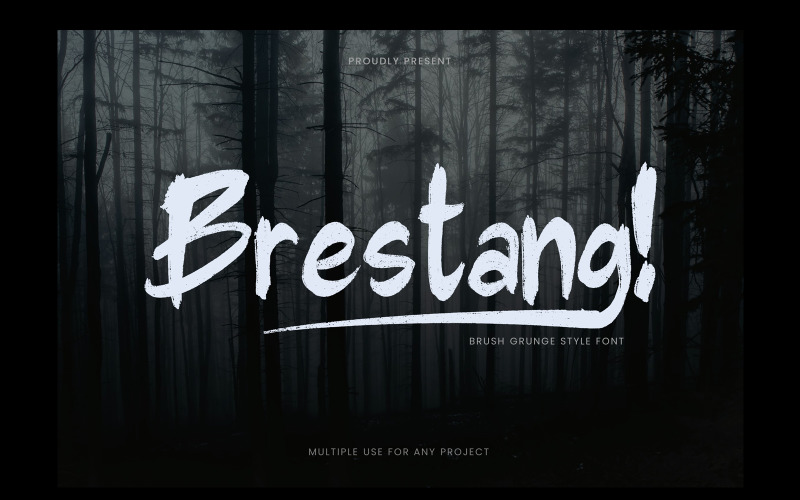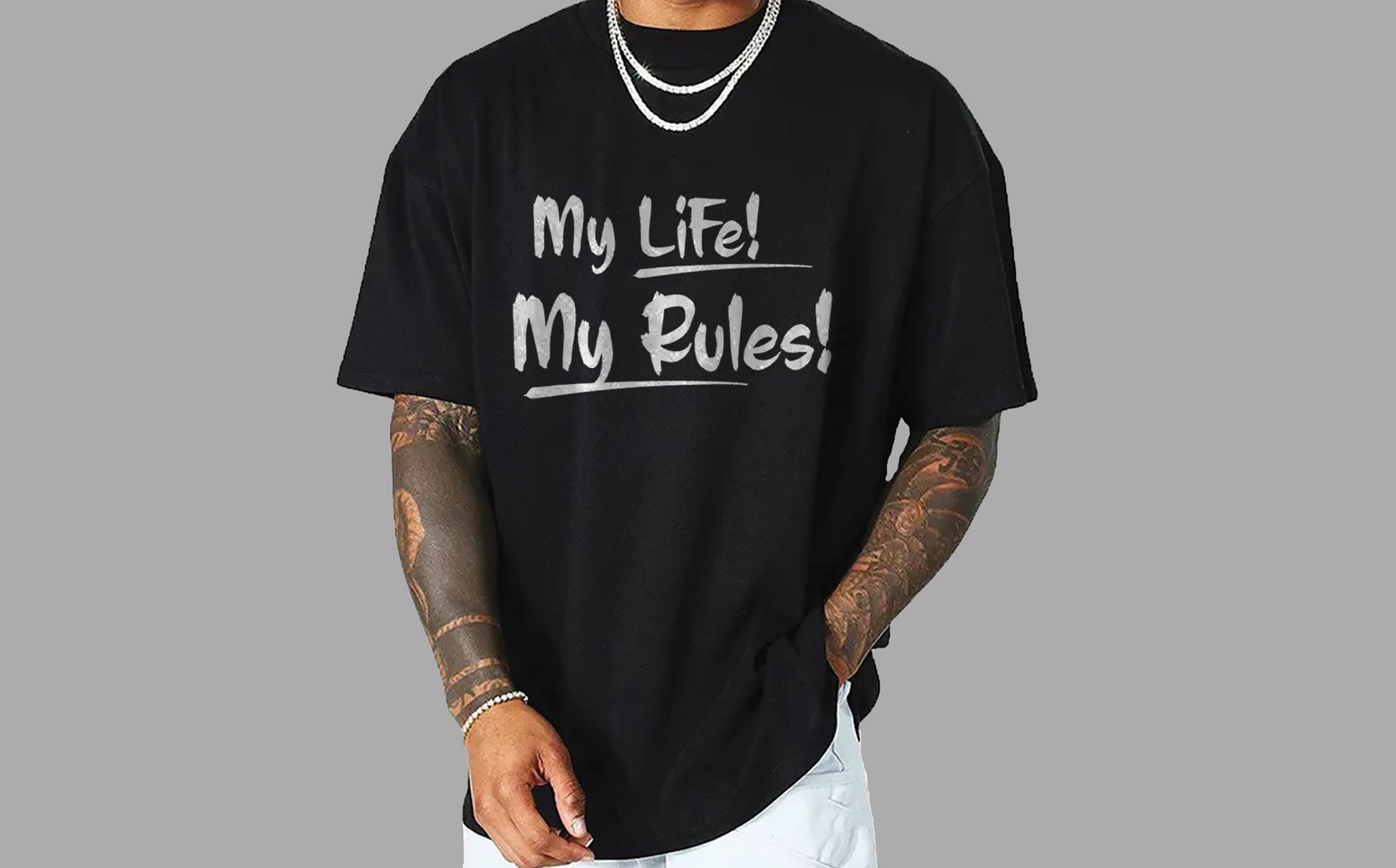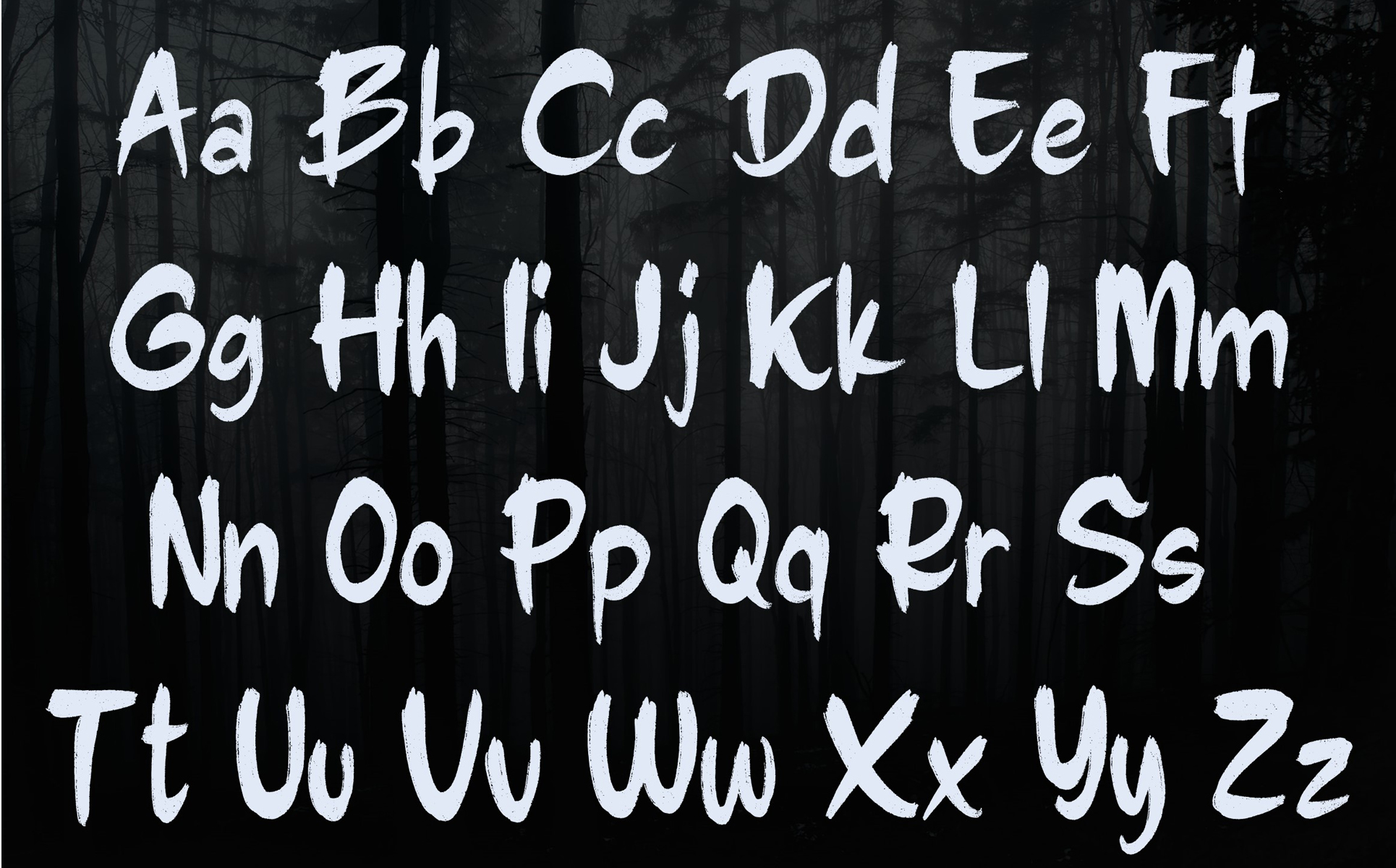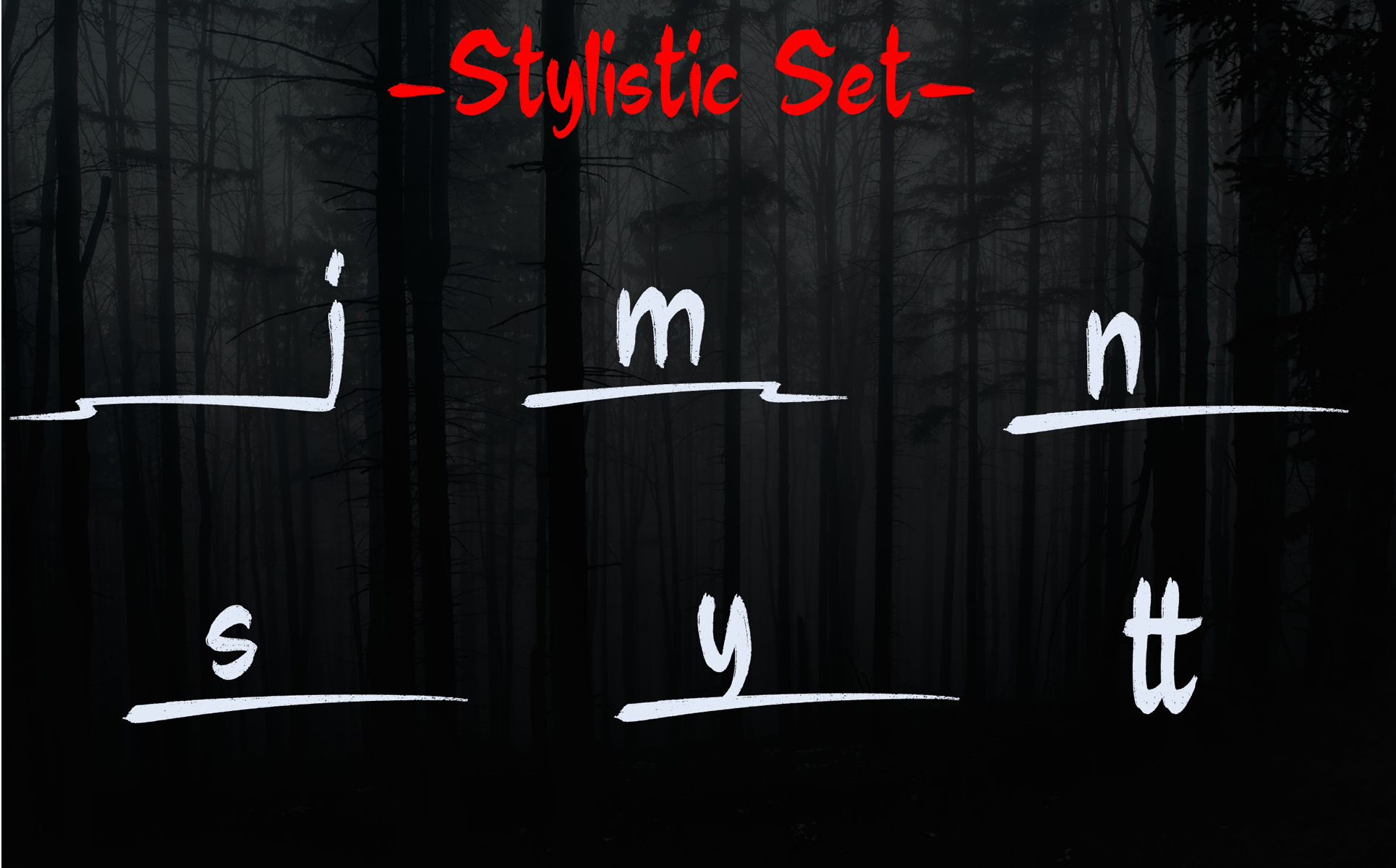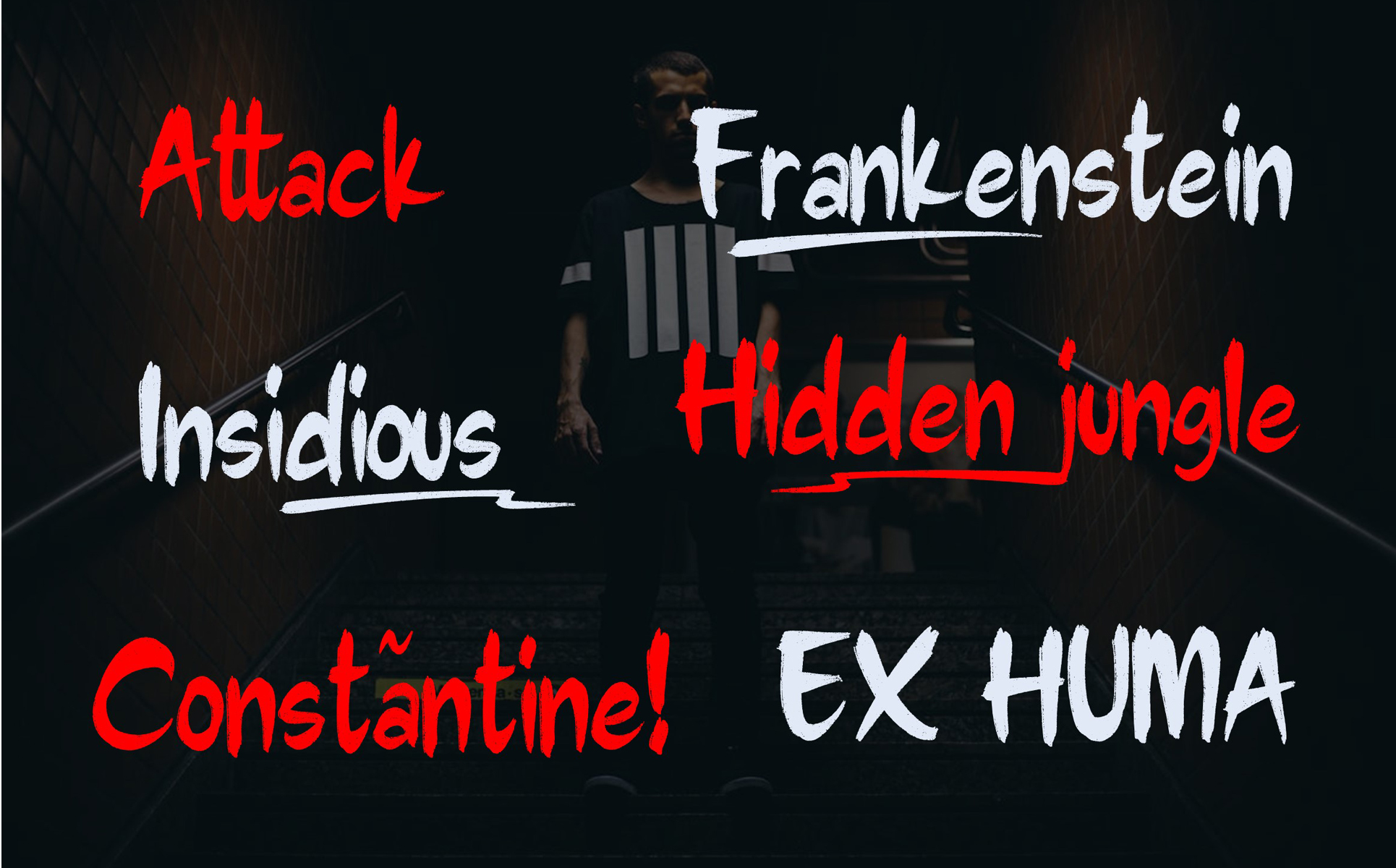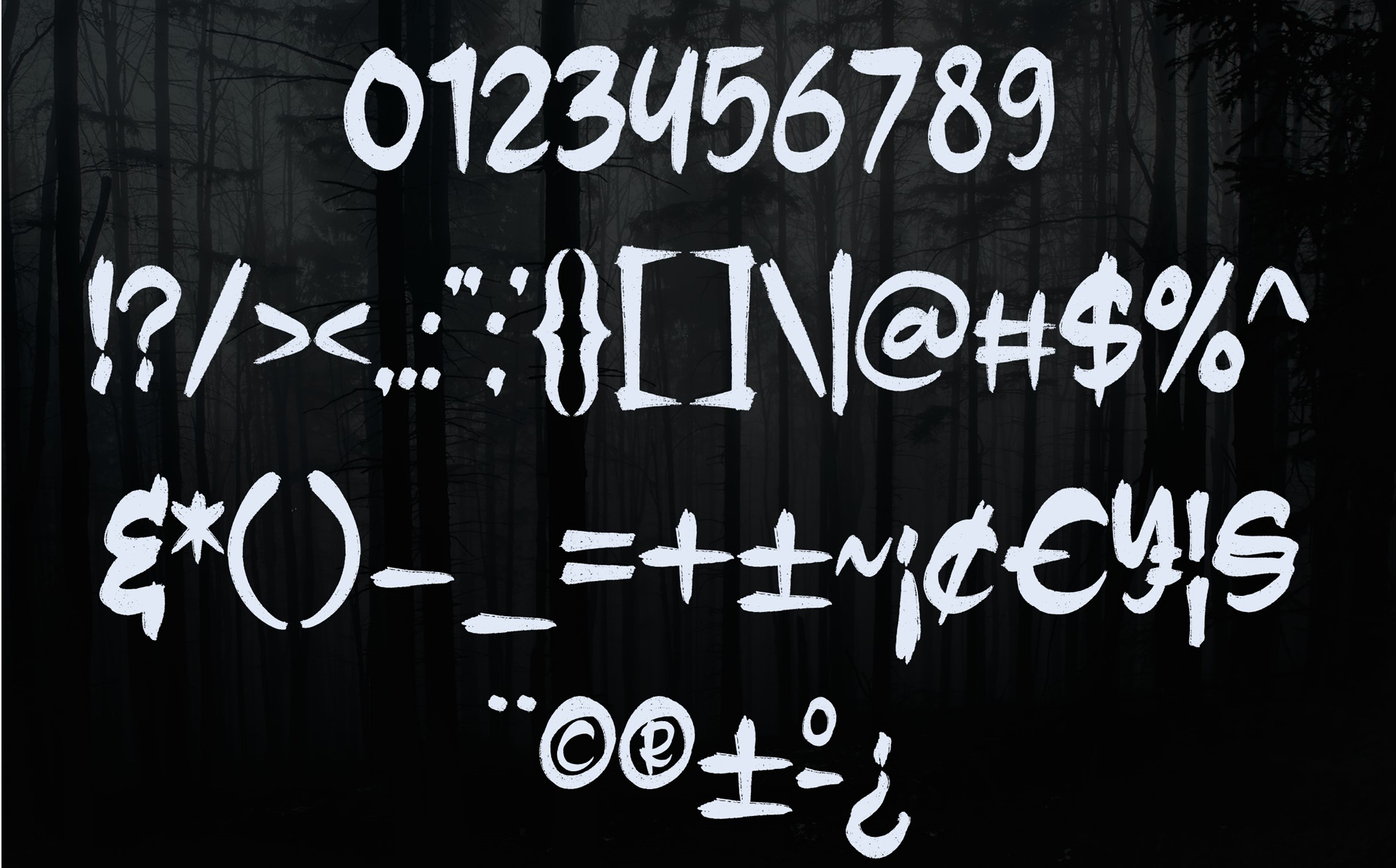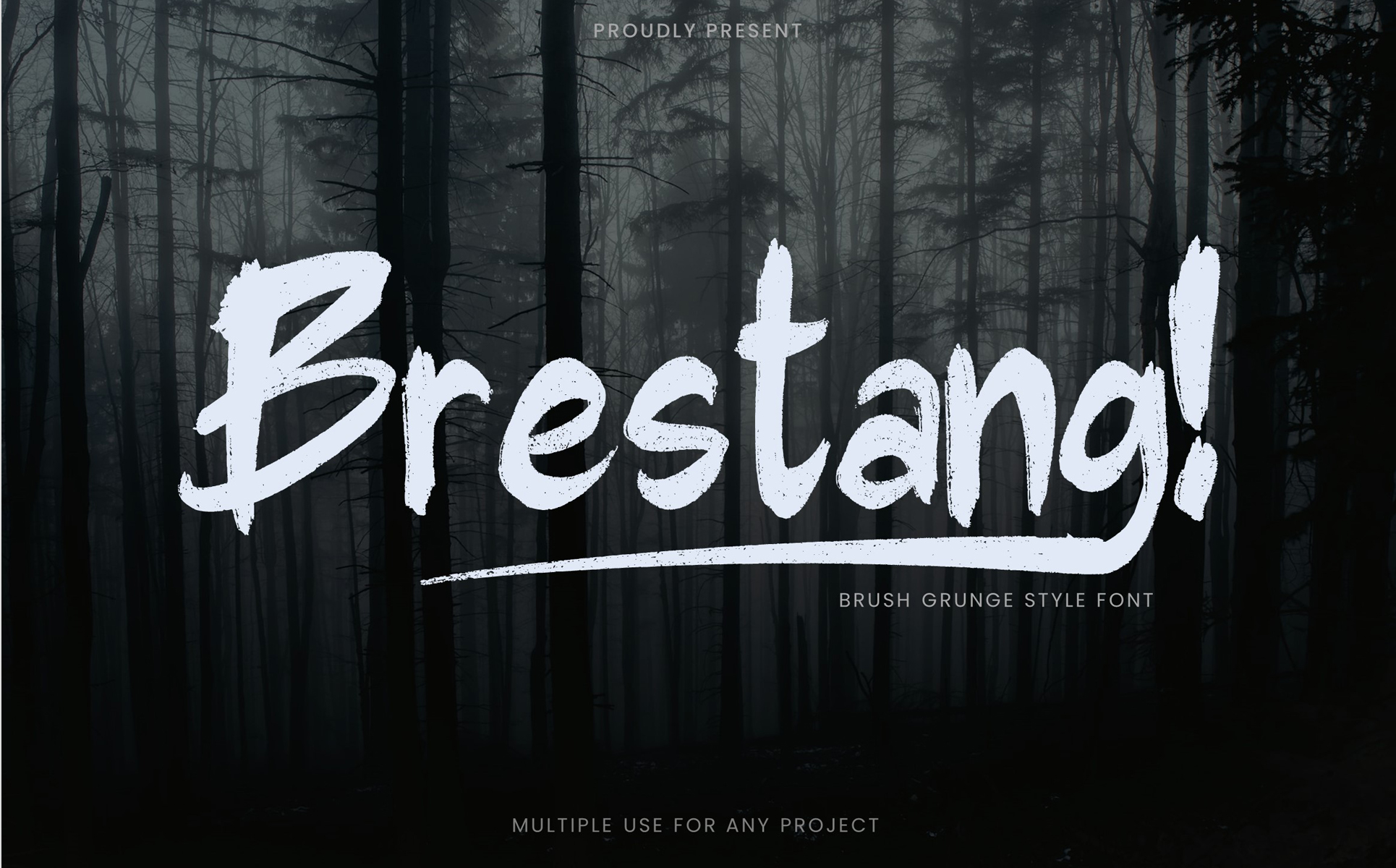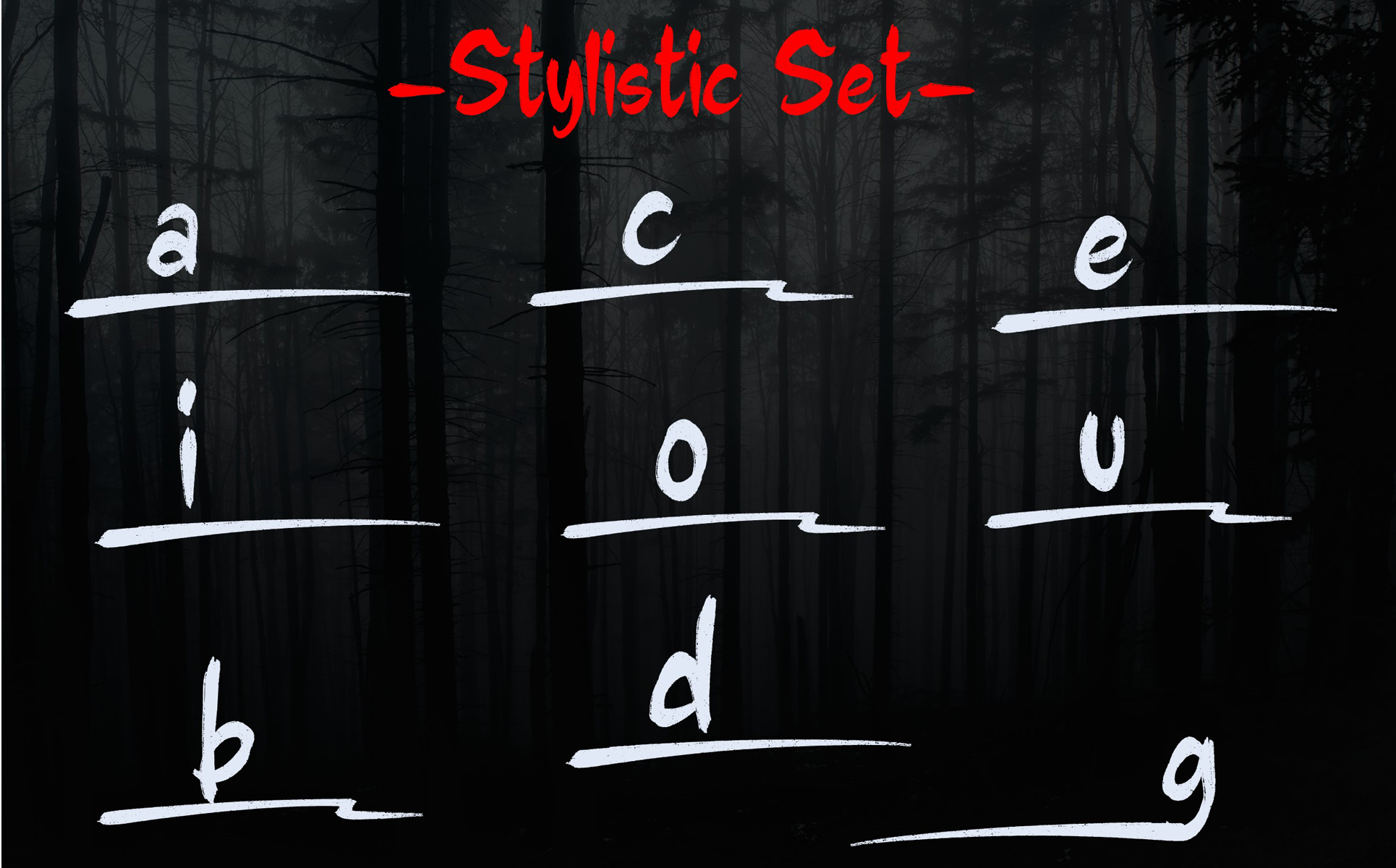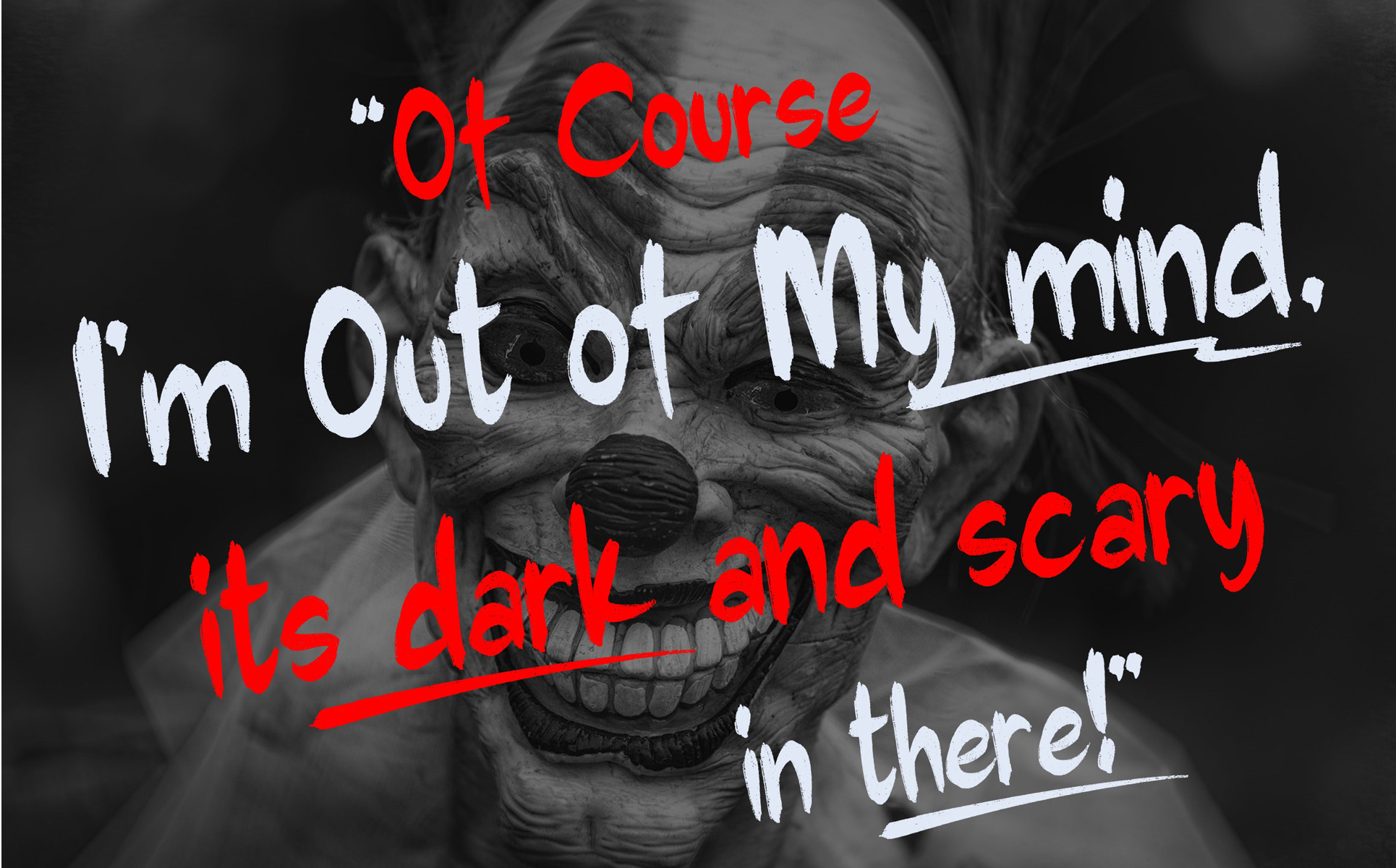
Font- Brestang Thriller brush style
Brestang Thriller Font
Brestang thriller Font is an scary brush font , it’s perfect for many different projects such as game, Halloween, horror, Spooky, Scary, night mare, haunted, ghost, gothic, mystical, dark, blood, creepy, hideous, horrific, damnable or thriller themed. Font can be used for Creative Projects.
- - 223 Glyps included Uppercase, Lowercase, Numeral, Punctuation, Multilingual international Language, Stylistic set